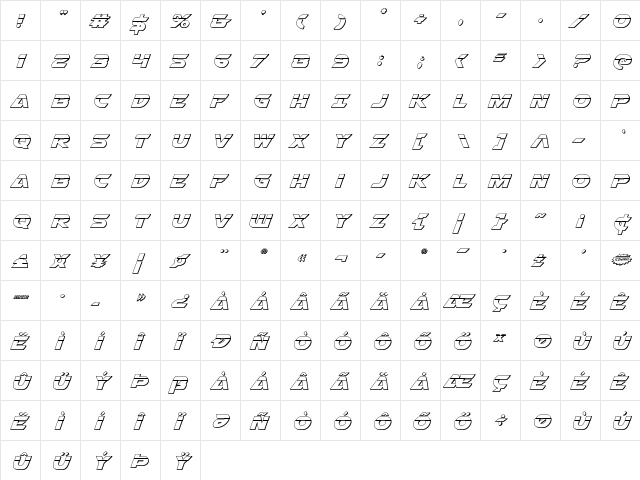
Airstrike Bullet Regular
Design Context for Airstrike Bullet Typeface
Airstrike Bullet is a composed and adaptable typeface that performs quietly and consistently across a wide range of design contexts.